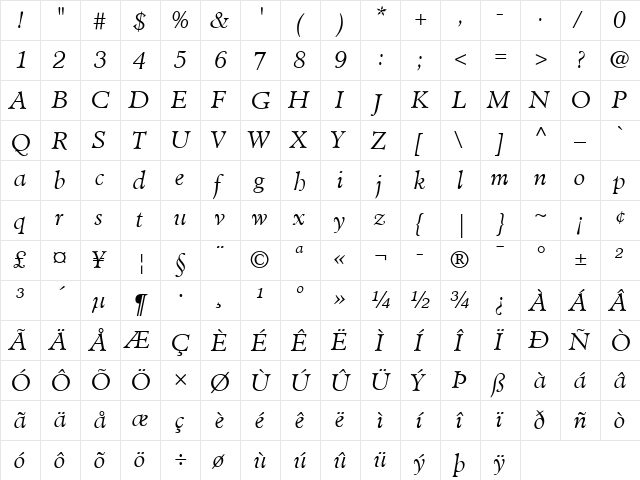
Minister LT Light Italic Font Preview
Design Context for Minister LT Light Typeface
Minister LT Light offers clean, dependable letterforms without strong stylistic allegiance, making it a practical choice for designers who need flexibility. The slanted form adds forward momentum and visual energy. Its slender proportions lend an understated elegance to any composition.
Pro Tip: Try Minister LT Light for annotation and caption copy alongside an upright companion — the contrast in angle creates a dynamic but ordered typographic system.